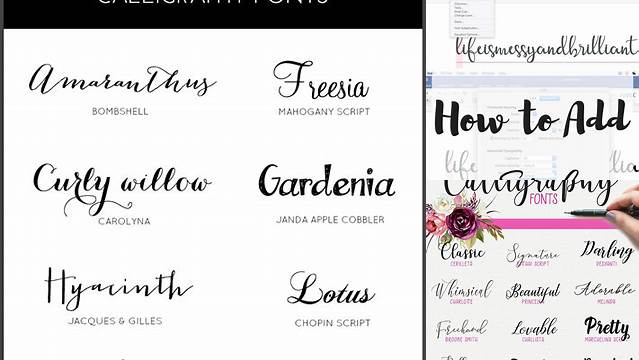
Calligraphy Fonts In Microsoft Word: Your Elegant Guide
Hey guys! Ever wanted to add a touch of elegance and artistry to your Microsoft Word documents? If you're nodding your head, you're in the right place! We're diving deep into the world of Microsoft Word fonts that look like calligraphy. Whether you're crafting wedding invitations, designing stunning certificates, or just want to give your documents a fancy flair, choosing the right font is key. So, grab your virtual pens, and let's get started on this typography journey!
What Makes a Font Calligraphic?
So, before we jump into the font suggestions, let's quickly chat about what exactly makes a font calligraphic. Essentially, these fonts aim to mimic the graceful strokes and flow of handwriting with a pen or brush. Think of it as digital calligraphy, where the font designer meticulously crafts each letter to emulate the beauty of hand-drawn lettering. Calligraphic fonts often feature several unique characteristics. First, you'll notice the varying stroke thicknesses – thick downstrokes and delicate upstrokes are a hallmark of calligraphy. Second, they often have elegant flourishes, swashes, and letter connections that add to their visual appeal. Finally, they have a sense of rhythm and movement, as if the letters are dancing across the page. When you're looking for a calligraphic font, keep an eye out for these features. Some fonts might be more formal and traditional, while others might lean towards a more modern and playful style. The beauty is in the diversity! Finding a font that fits your project perfectly is about balancing style and readability. You want a font that looks beautiful, but you also want it to be easy to read, especially for longer pieces of text. Also, think about the overall tone you want to set with your document. A classic script might be perfect for an invitation or certificate, but maybe not so much for a technical report. By understanding what makes a font calligraphic and considering your project's needs, you'll be well-equipped to select the perfect font.
It's also important to know a bit about font families. A font family includes different styles of the same font, like regular, bold, italic, and sometimes even condensed or expanded versions. When you're choosing a calligraphic font, see if it comes with a range of styles. This gives you more flexibility in how you use the font. You might use the regular style for headings, bold for emphasis, and italic for quotes or special text. Furthermore, playing with font sizes can dramatically change the look and feel of your text. A larger calligraphic font can make a statement for headlines and titles, while a smaller size might work for body text. Consider the font's legibility at various sizes, especially for long pieces of text. Some calligraphic fonts are best suited for larger sizes where their details can be fully appreciated. So, the next time you're looking for Microsoft Word fonts that look like calligraphy, remember to consider not just the font itself, but also its different styles, sizes, and how it fits with the overall aesthetic of your document.
Top Calligraphy Fonts in Microsoft Word
Alright, let's get to the good stuff – the fonts! Here's a roundup of some of the best Microsoft Word fonts that look like calligraphy to give your documents that elegant touch. Keep in mind that the fonts available to you might vary based on your system and what fonts are installed. But, these are generally popular and widely available.
1. Brush Script MT
Brush Script MT is like the cool older sibling of calligraphy fonts – classic, yet still super stylish. It's a great option if you want a handwritten feel without being overly formal. This font is characterized by its slightly rough edges, which mimic the strokes of a brush. Brush Script MT is very legible, making it a great option for titles and short passages. It's got that casual flair that's perfect for things like invitations or fun, personal projects. Think of it as the everyday calligraphy font. It’s versatile and easy to read, making it an excellent choice for anything from birthday cards to playful headings in your presentations. It’s a font that fits various contexts without feeling out of place.
2. Edwardian Script ITC
If you're after pure elegance, Edwardian Script ITC is your go-to. This font has a formal, sophisticated feel, with its graceful loops and swirls. It's perfect for creating invitations, certificates, or any document where you want to convey a sense of sophistication. This font’s flowing design has a touch of class, a bit like a vintage movie poster. If you're aiming for a classic, high-end look, Edwardian Script ITC is the right choice. However, because of its intricate design, it's best used for titles, headings, and short pieces of text, rather than long paragraphs, to ensure readability.
3. Lucida Calligraphy
Lucida Calligraphy strikes a lovely balance between elegance and readability. This font is very easy to read. This makes it a fantastic option if you need your text to look beautiful and easy to read. It has a more modern feel than some of the more traditional scripts. Lucida Calligraphy is great for a variety of uses, including titles, headings, and short passages. It's a good choice when you need something that looks elegant but is also practical. Consider using it when creating documents for both print and screen. Its clear design makes it an excellent choice for conveying sophistication without sacrificing legibility. Its balanced look works well in various settings, providing a touch of refined style. Moreover, its clean lines ensure that the calligraphic style doesn't overwhelm the message, making it an ideal font for professional documents, adding a touch of artistry without diminishing the clarity of your text.
4. Freestyle Script
Freestyle Script is playful and fun, perfect for projects that need a touch of whimsy. It's a lively font with slightly irregular letterforms that give it a friendly, handwritten feel. This font is great for projects where you want to feel more casual and less formal. Freestyle Script is perfect for party invitations, greeting cards, or anything that needs a lighthearted touch. Its energetic style adds personality to any design and is an easy way to make your text feel more personal and engaging. So, if you’re looking to make your document feel approachable and fun, Freestyle Script is your best friend.
How to Use Calligraphy Fonts Effectively
Choosing a font is just the first step; knowing how to use it effectively is key. Here's how to make the most of your chosen Microsoft Word fonts that look like calligraphy.
Pairing Fonts
One of the biggest design mistakes is pairing two clashing fonts. Combining a calligraphy font with another complementary font can create a more cohesive and visually appealing design. The key is to balance the elegance of the calligraphy font with a simple, easy-to-read font for the body text. You can use a clean sans-serif font like Arial or a classic serif font like Times New Roman for the body. This way, your headings and titles will stand out, and your body text will remain clear and easy to read. Avoid pairing two elaborate or decorative fonts together; the result can be visually overwhelming. A good rule of thumb is to choose a font that complements the calligraphic style without competing with it. Experiment with different combinations to find the perfect match for your project.
Font Size and Spacing
Font size and spacing significantly affect your text's readability and visual appeal. Because calligraphic fonts often have intricate details, ensure your font size is large enough for easy reading. For headings and titles, a larger size will showcase the font's beauty. However, you might want to reduce the size for body text. Pay close attention to the spacing between lines (leading) and between letters (kerning). Proper spacing prevents the text from appearing cramped. Adjusting the leading can make the text easier to read, especially for longer paragraphs. Kerning adjustments can refine the visual appearance of your headings. Try different font sizes and spacing settings to find the optimal balance. Play with the font size, kerning, and leading to ensure your calligraphy font is presented in the best possible way.
So there you have it! Your guide to Microsoft Word fonts that look like calligraphy. With a bit of creativity and the right fonts, you can transform your documents from plain to polished. Have fun experimenting, and don’t be afraid to try different combinations until you find the perfect style for your project. Happy designing, everyone!